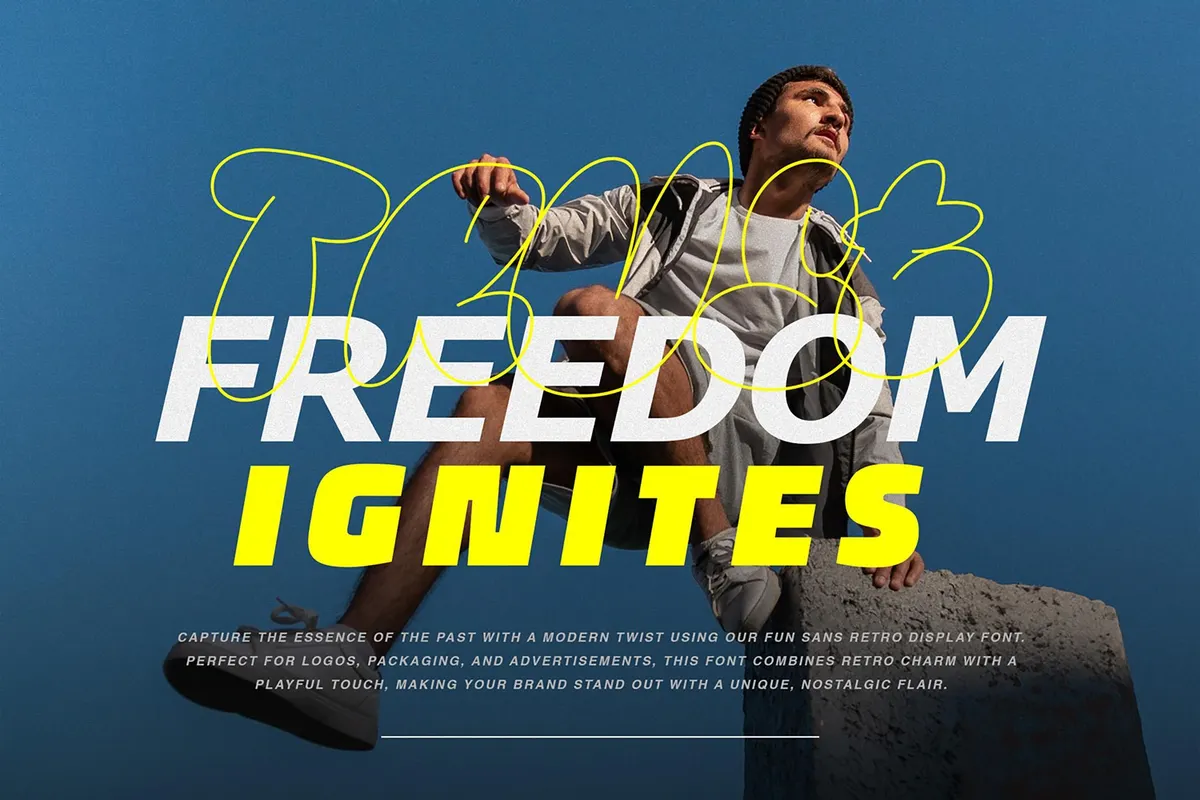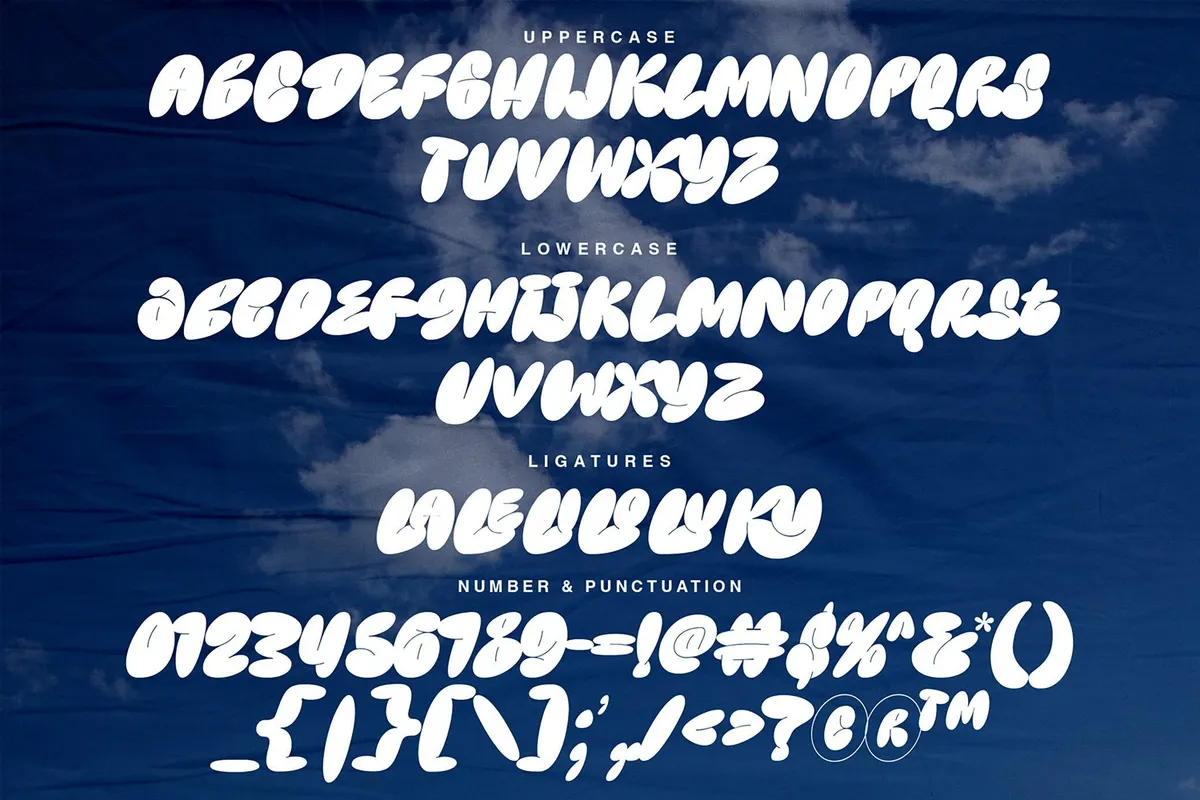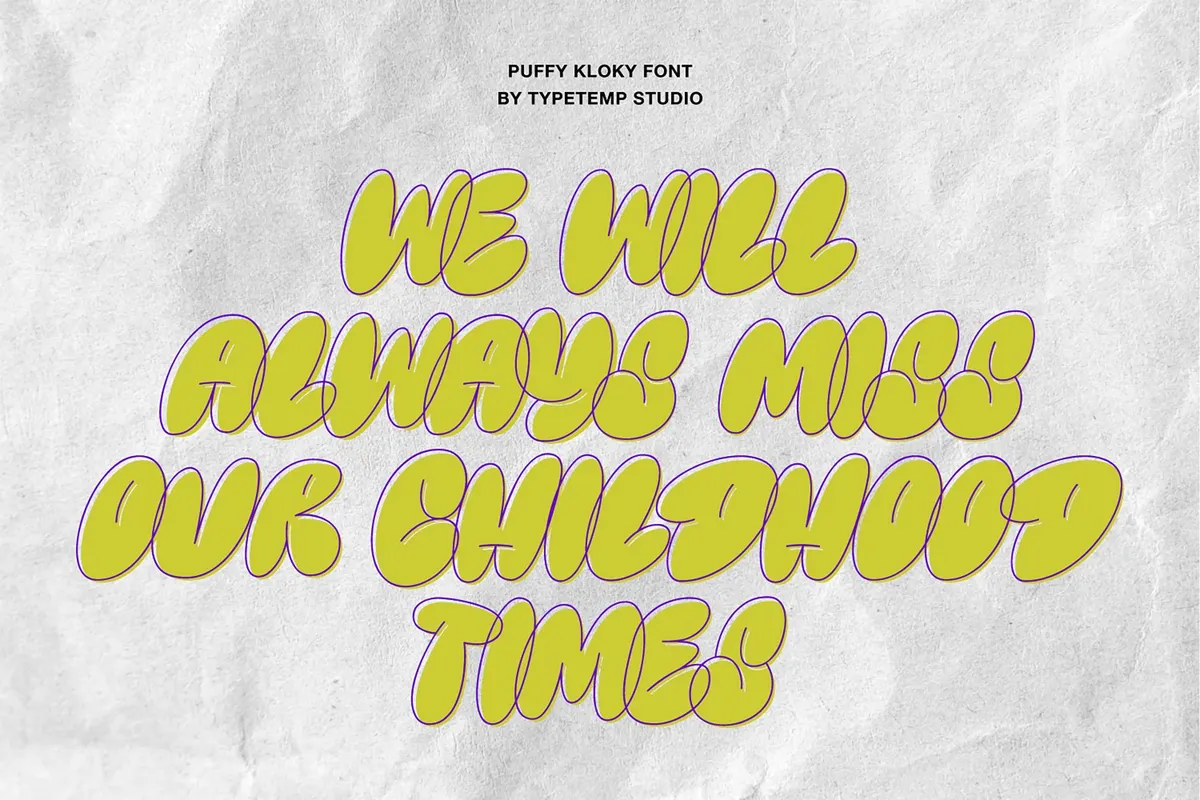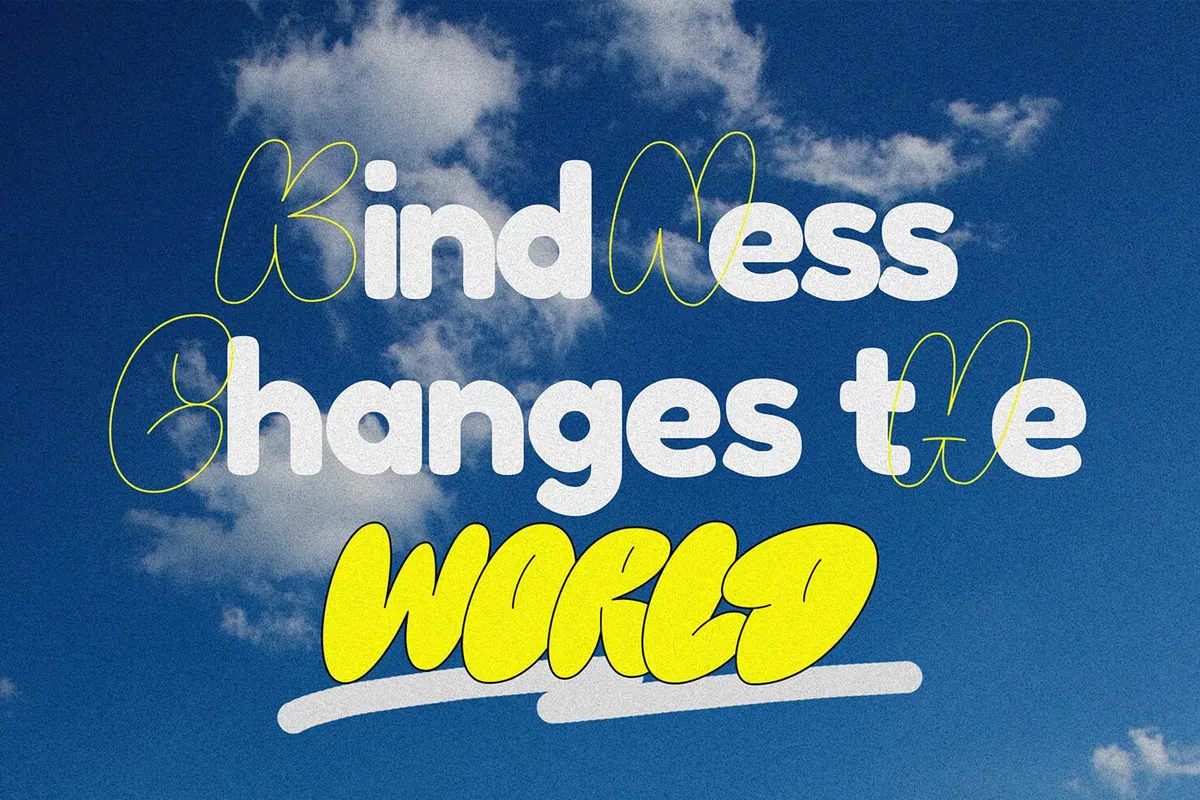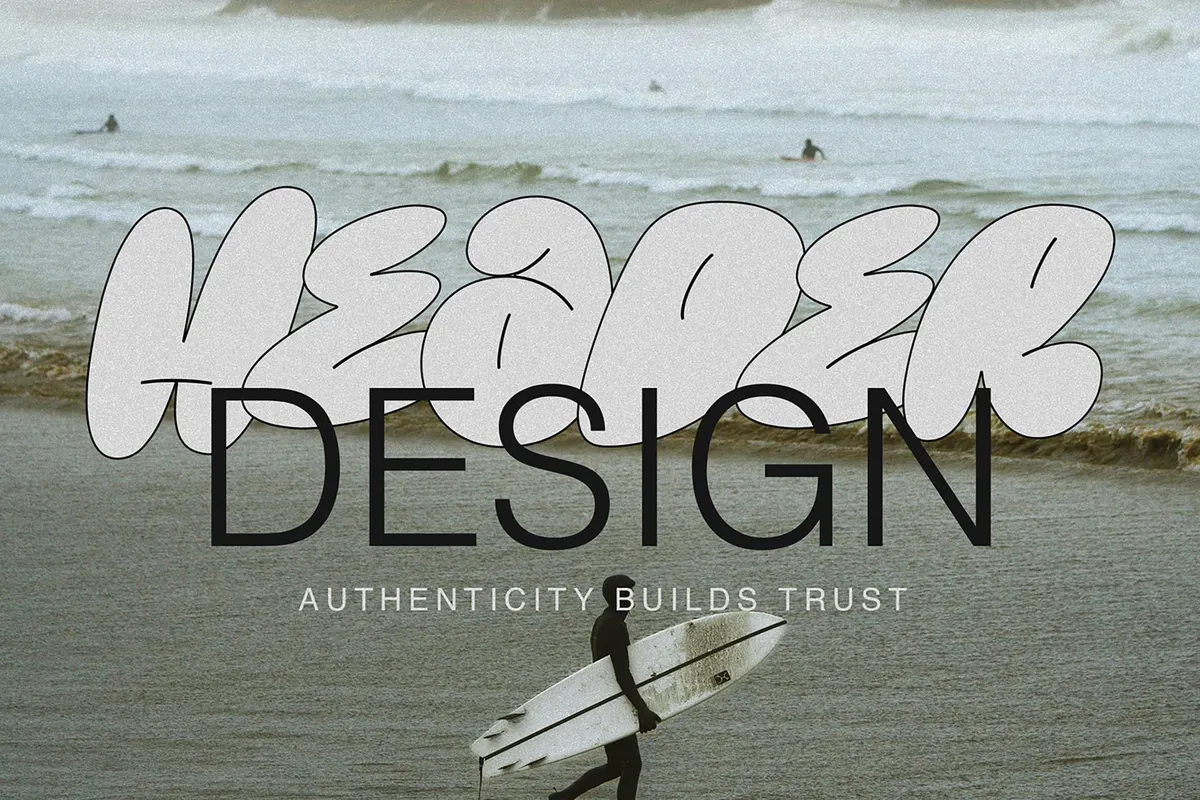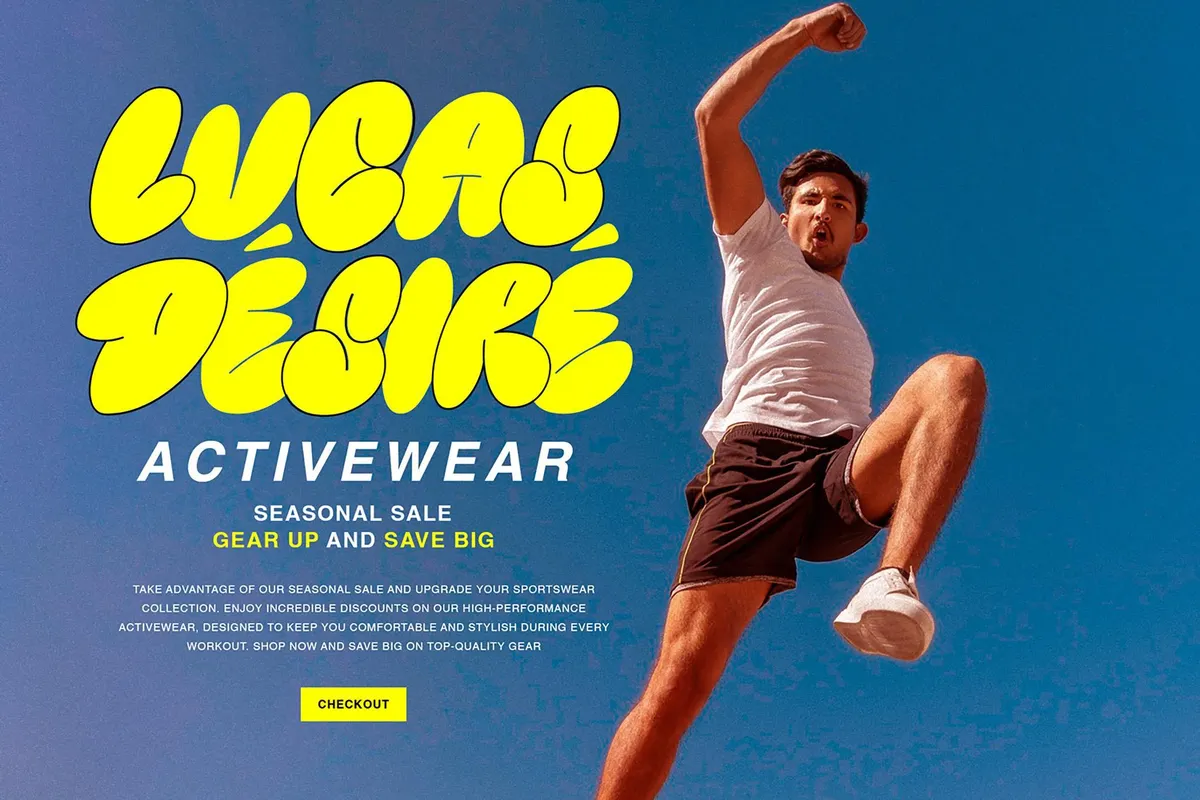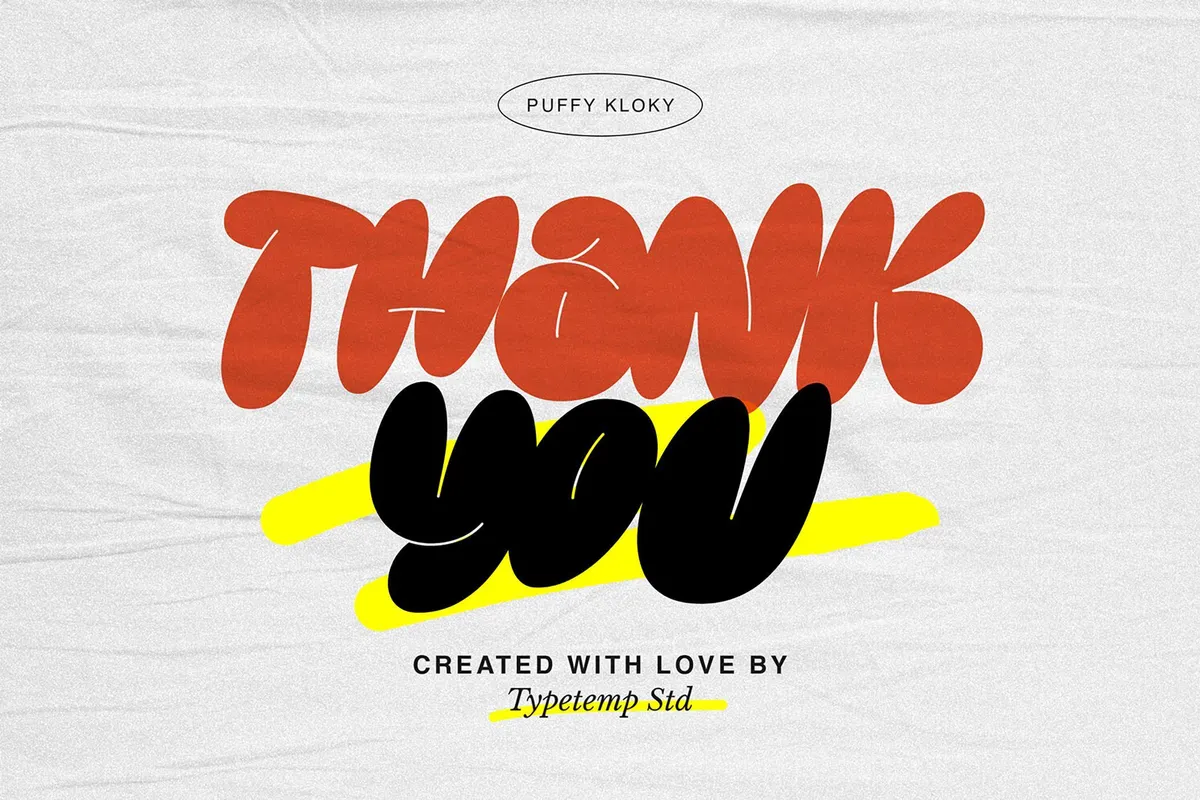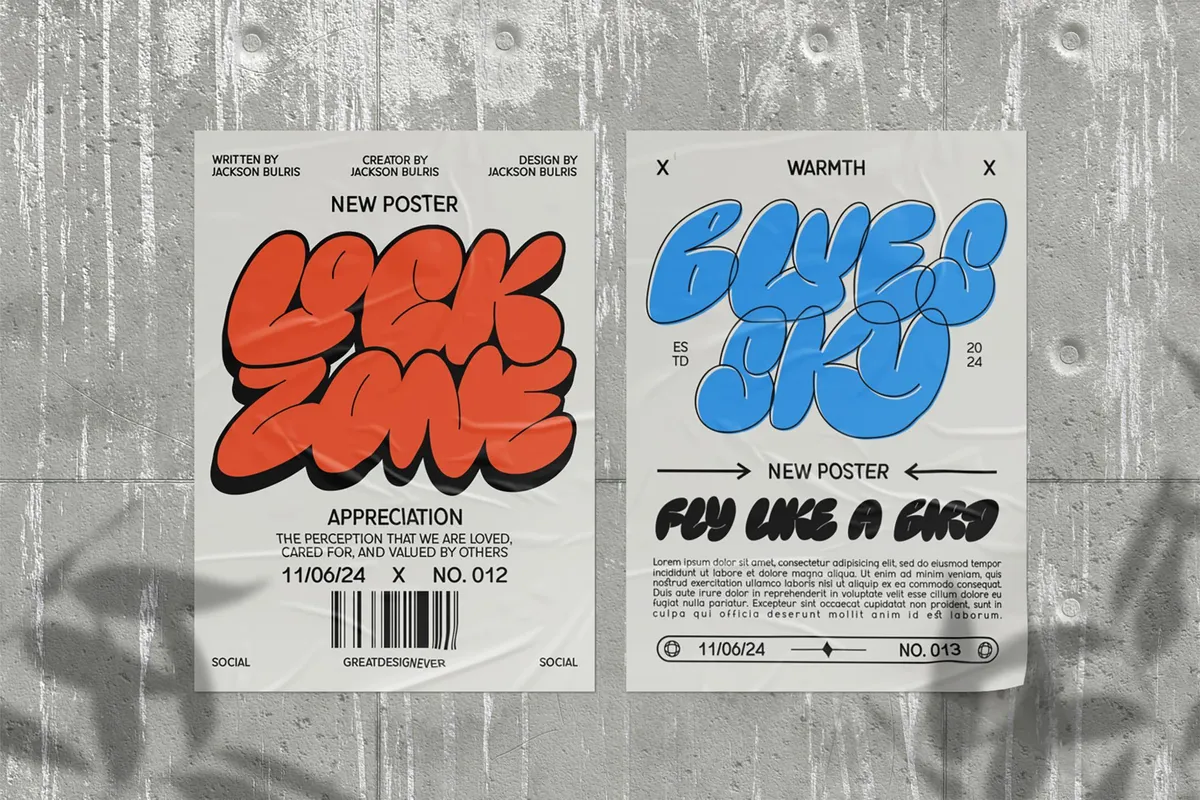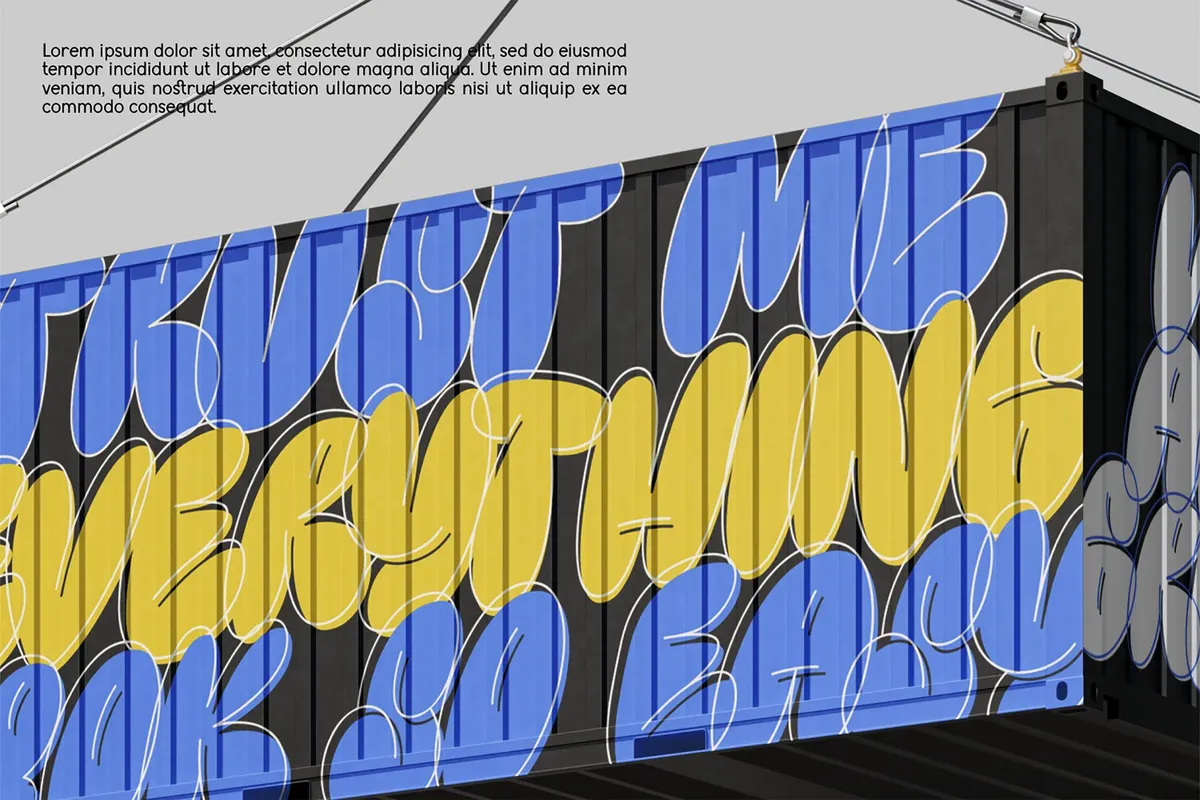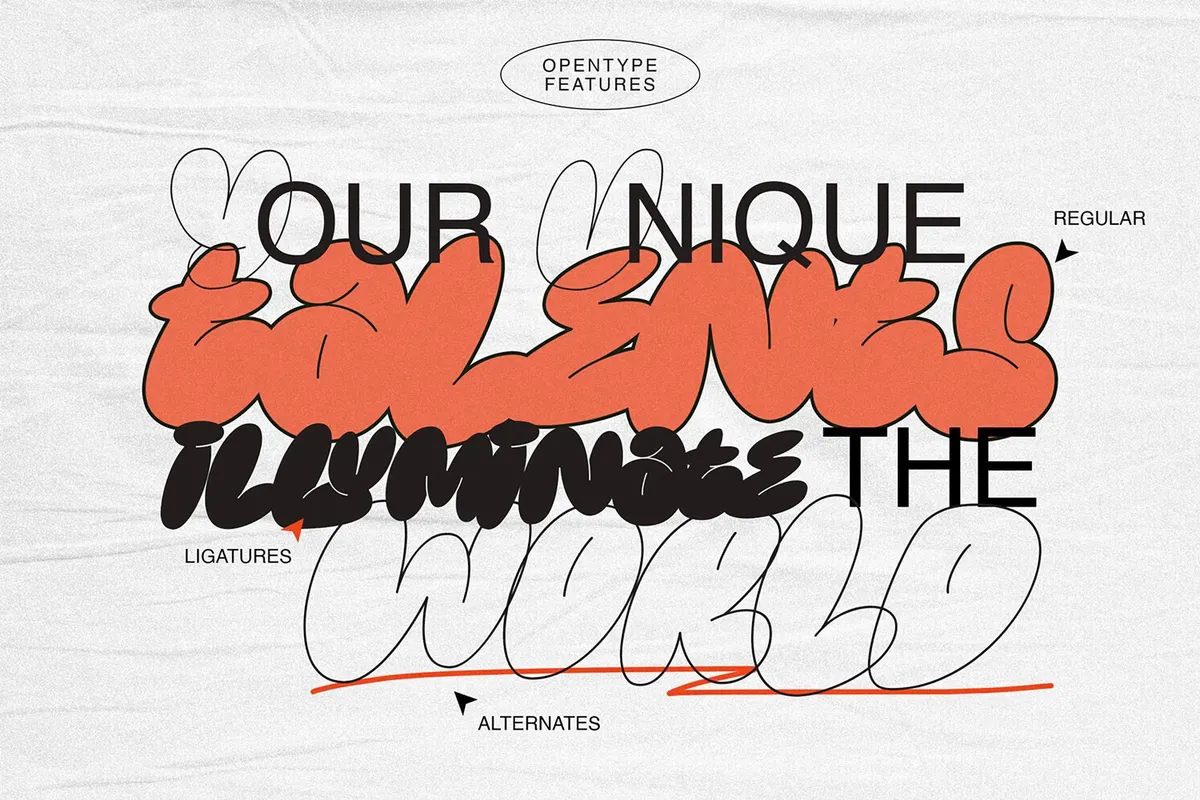
Puffy Kloky Bubble Font
Puffy Kloky Font
Bubble fonts're still all the rage. Unlike the rest of 90s and 00s stuff, they feel like another new timeless trend. Is it because of the street art vibe? Don't really care, just love them as they are. Especially this one, 'cause it's a ten.
Got the graffiti style, got the bubble style — and BOOM! — you've got Puffy Klocky type. It's a perfect combo whenever you don't feel like serifs and delightful scripts. Tattoo it on your skin or your designs: posters, streetwear brands, stickers, street food packaging, social media posts, skateboards, etc. There's a complete character set, including multilingual support. Plus, some OpenType features, like alternatives and ligatures.